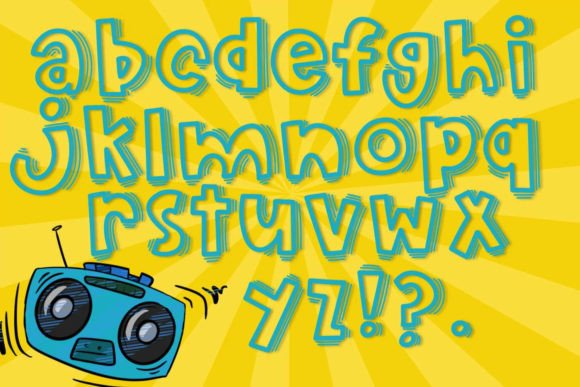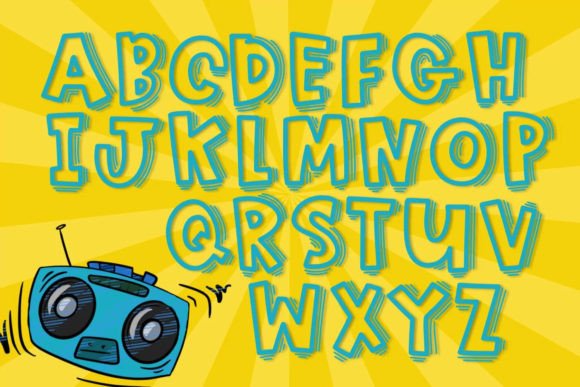
Loud and Crazy Font
Introducing Loud And Crazy, a boxy hand-written print font designed to make a bold statement with emphasis! This loud and energetic font is perfect for a variety of projects, especially those aimed at kids or anything that requires a playful and lively touch.
The boxy and hand-written style of Loud And Crazy adds a dynamic and attention-grabbing element to your text. Whether you’re working on children’s projects, playful branding, posters, banners, or any design that calls for a bold and lively font, Loud And Crazy is crafted to meet the demand.
Consider using Loud And Crazy to create eye-catching materials for kids’ events, design vibrant posters that stand out, or add a playful touch to your branding materials. The emphasis in this font ensures that your text makes a strong visual impact, making it an ideal choice for projects where you want to convey energy and excitement.
In essence, Loud And Crazy is more than just a font; it’s a creative tool that brings a bold and boxy style to your designs. Let it be the go-to choice for projects that require a loud and attention-grabbing font, adding a playful and energetic flair to your creative endeavors.